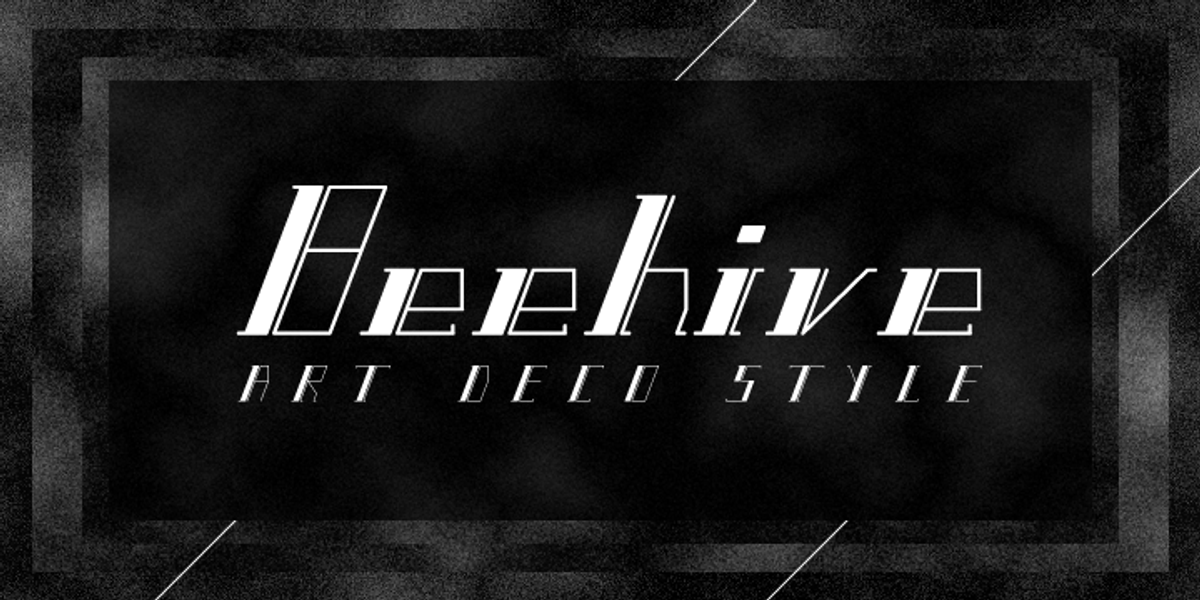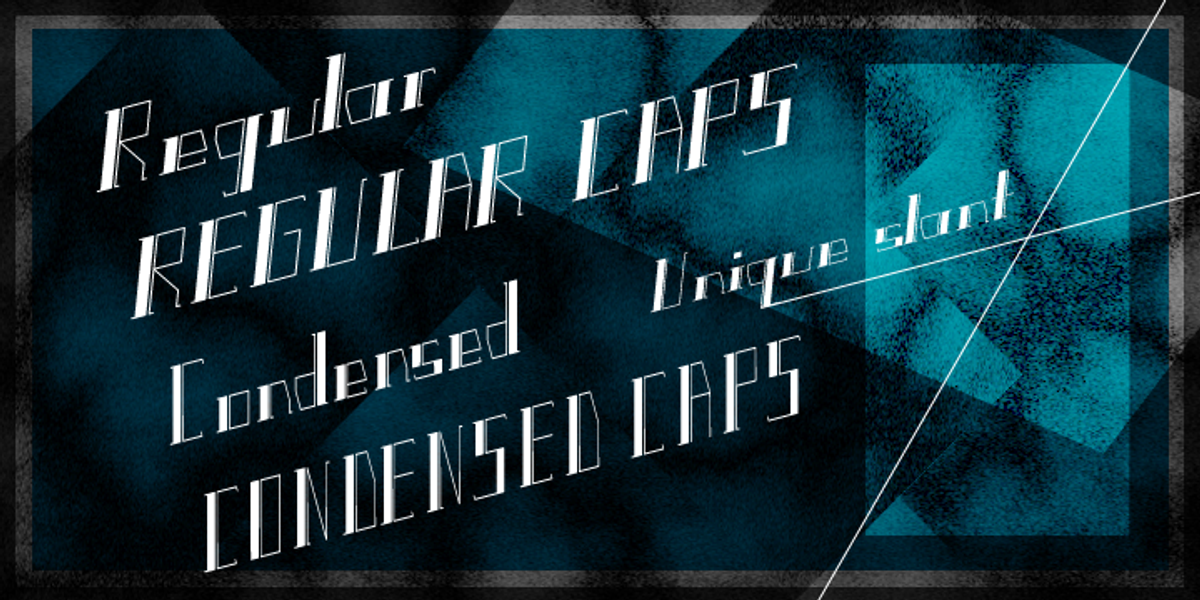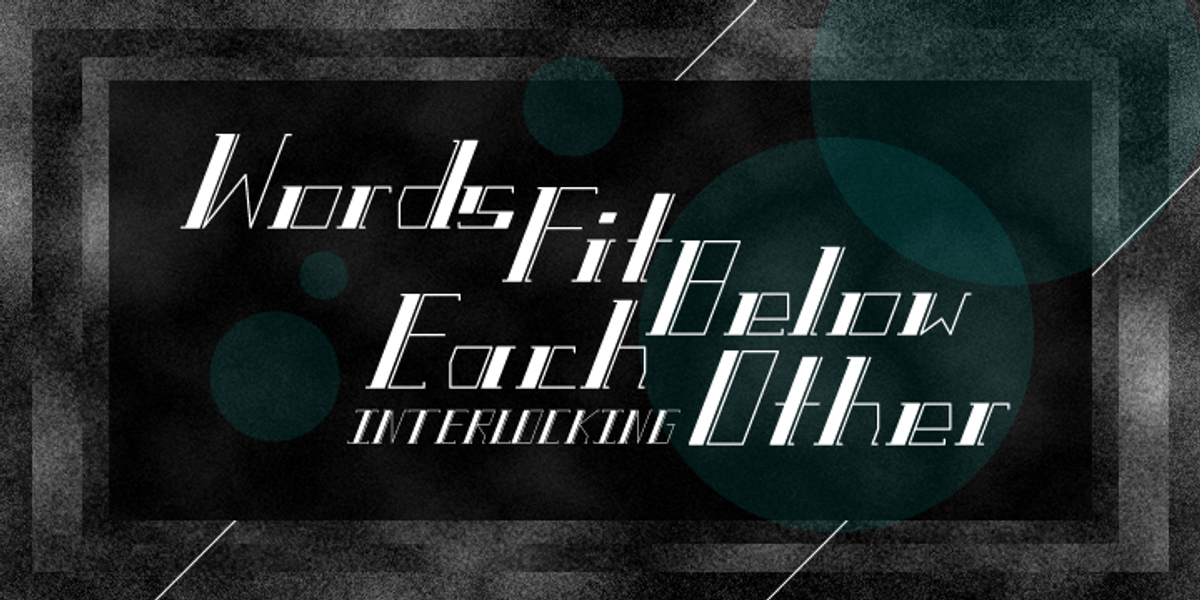
Beehive
Beehive is an Art Deco inspired display typeface designed for creating stylized titling and logos. Its unique slant and all-caps design make it ideal for branding, posters, band artwork, album covers, and other uses where a vintage aesthetic is desired.